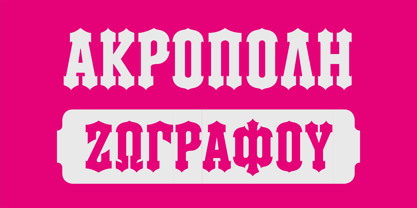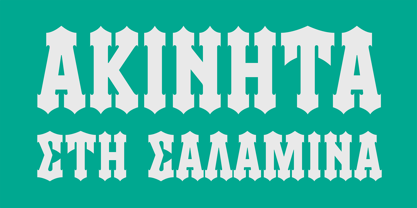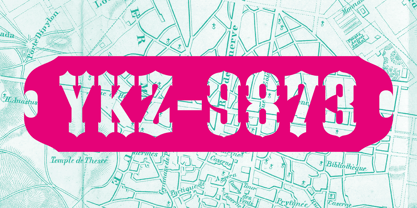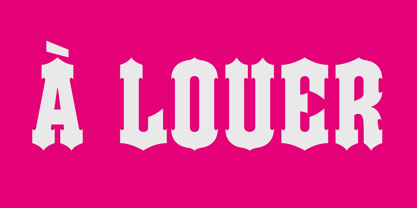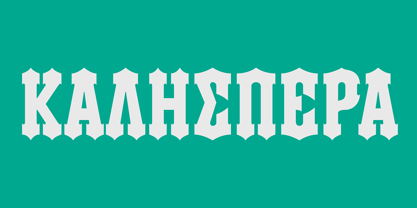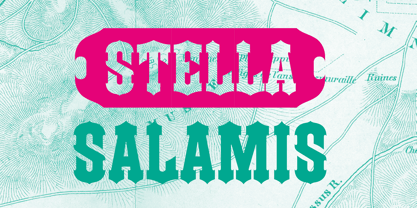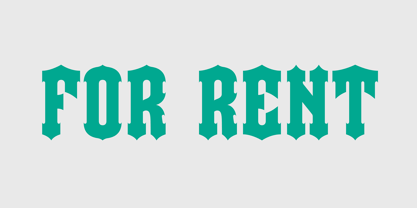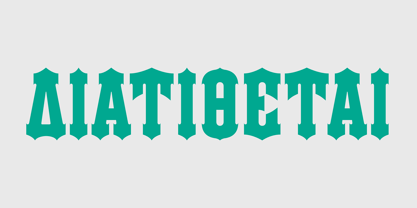
Stella Salamis
The Stella Salamis Font Family was designed by Yannis Karlopoulos and published by Fonts.GR. Stella Salamis contains 2 styles and family package options. More about this family
Stella Salamis is an uppercase display font based on the iconic woodtypes used on the "for rent" and "for sale" ads in Greece. The types relate to the Tuscan Pointed woodtype style and are a unique greek version of this kind. Stella Salamis comes in two versions, regular and reversed, which also contains a set of decorative endpoint ornaments.